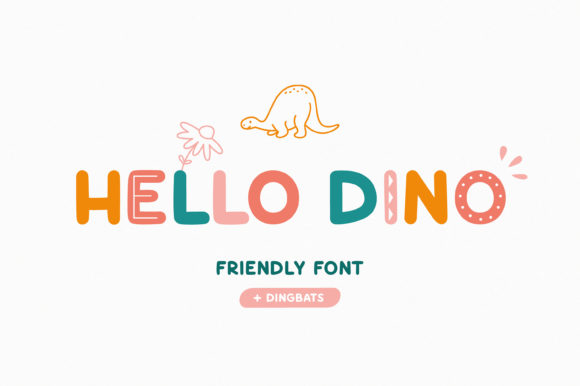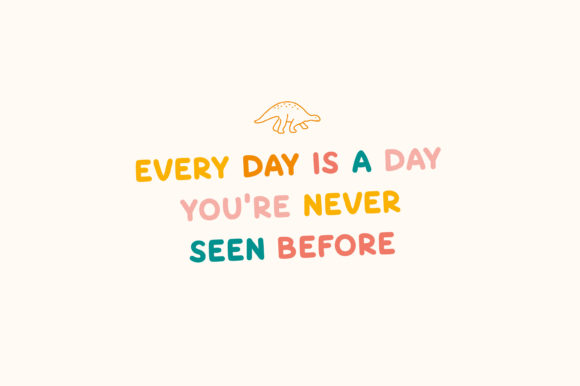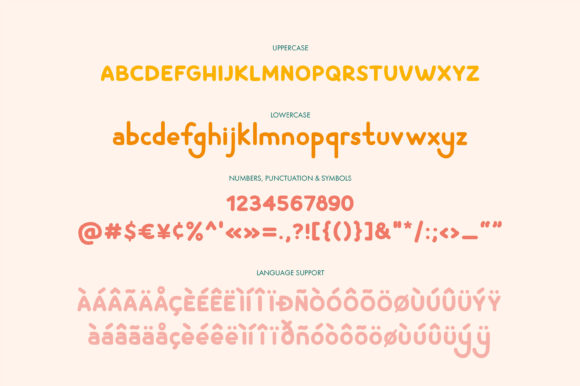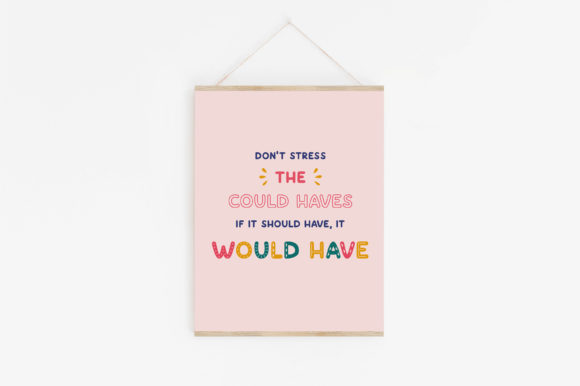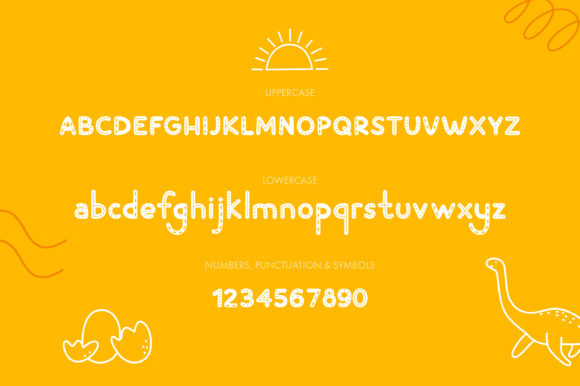
Hello Dino Font
Hello Dino is a cute and friendly display font. Whether you’re using it for crafts, digital design, presentations, or making greeting cards, this font has the potential to become your favorite go-to font, no matter the occasion!